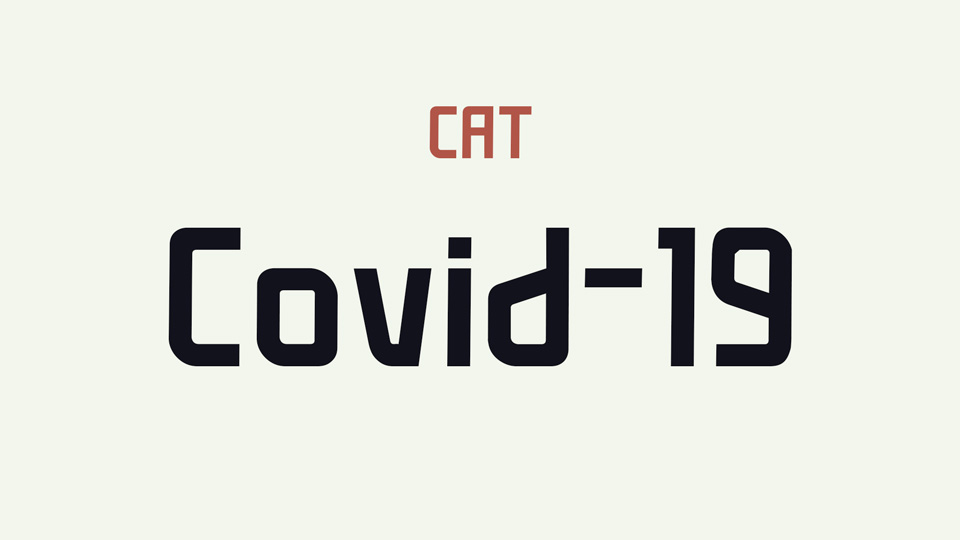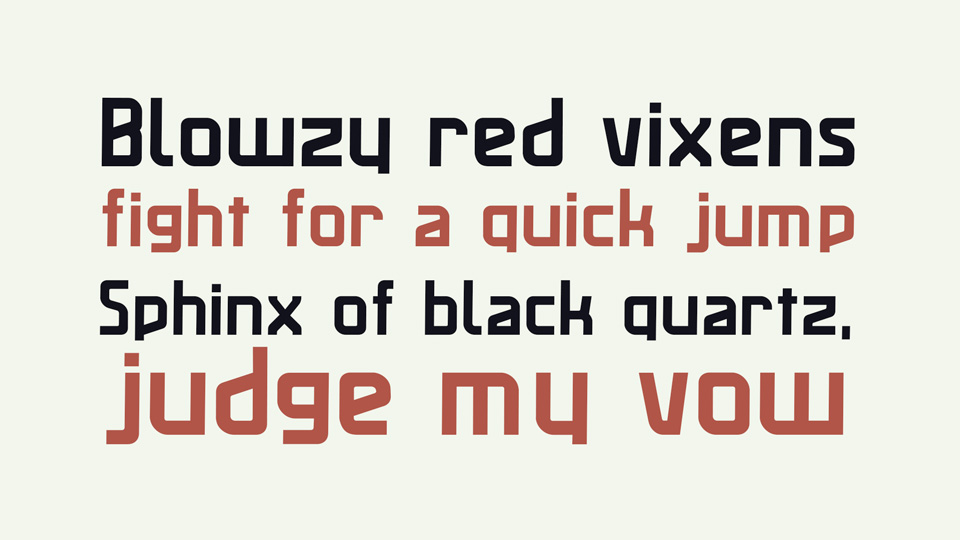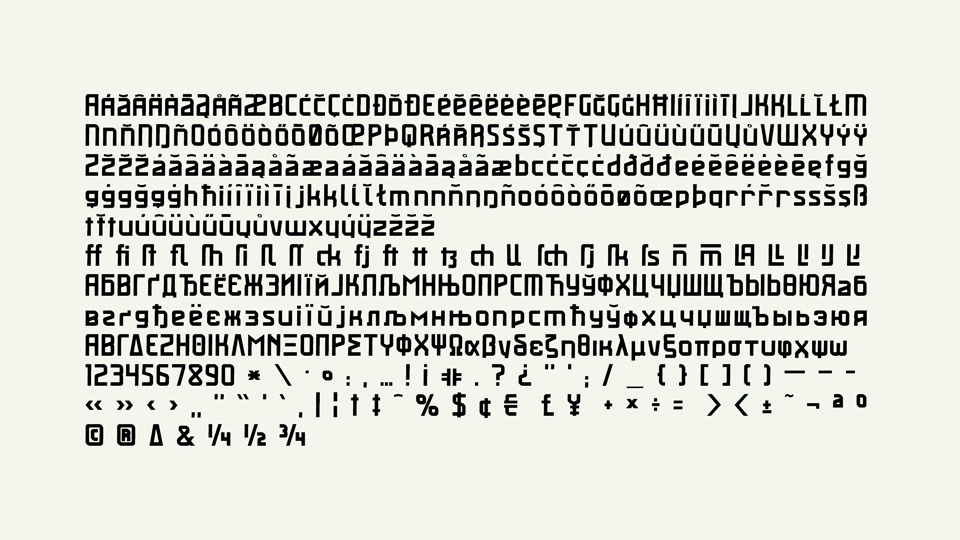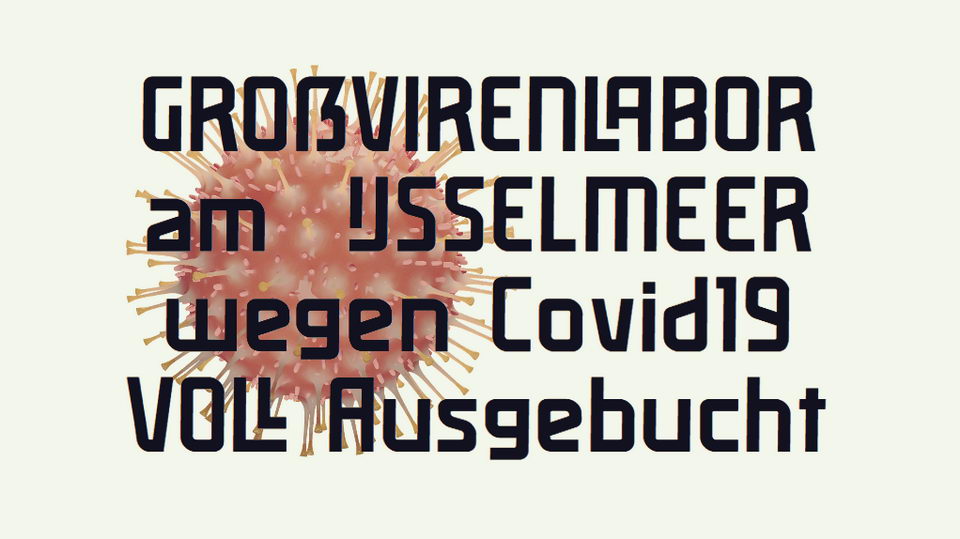
Covid-19 Font
Covid-19 is a solid techno style sans serif font named after currrent situation. It has a lot of ligatures and extended language support, including Cyrillic and Greek.
Covid-19 font works perfect for headlines and short text paragraphs.